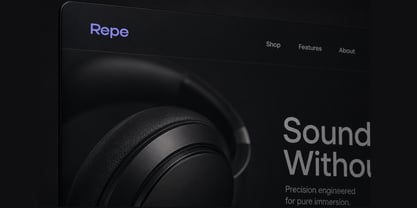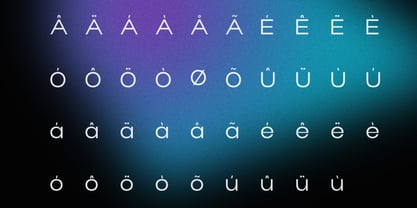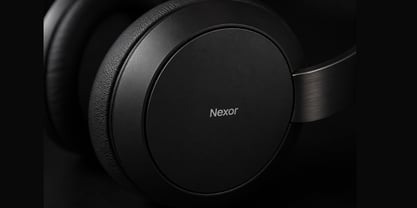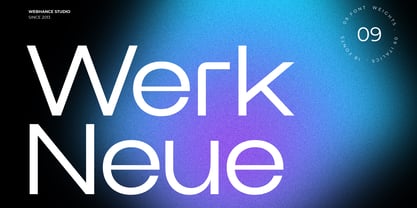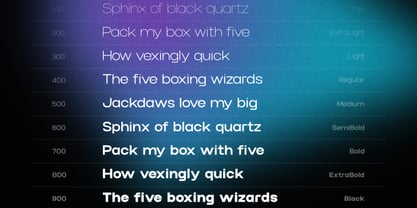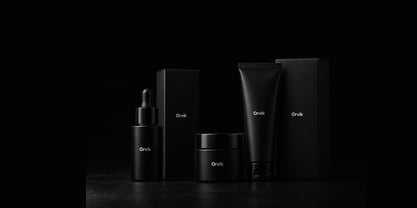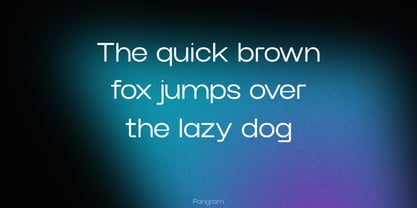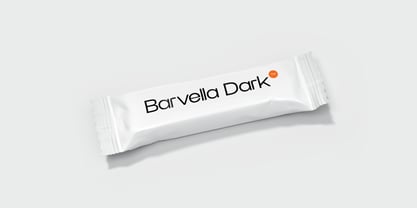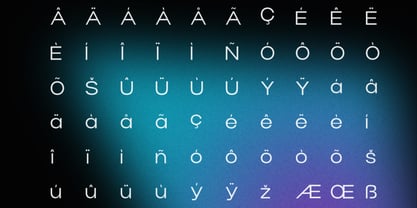
Werk Neue
by Webhance
The Werk Neue Font Family was designed by Ancy George and published by Webhance. Werk Neue contains 18 styles and family package options. More about this family
Werk Neue is a modern grotesk sans-serif typeface designed for clarity, balance, and everyday use. Its clean letterforms, precise spacing, and neutral character make it highly adaptable across interfaces, branding, and editorial design.
Built with readability in mind, Werk Neue performs consistently across different sizes and contexts. It is well suited for UI design, dashboards, websites, and modern design systems where clarity and structure are essential.
The typeface includes extended Latin support with a full set of accented characters, enabling reliable multilingual use across a wide range of languages.
The family features 9 weights, from Hairline to Black, each paired with matching italics. Whether used for interfaces, brand identities, layouts, or digital products, Werk Neue provides a versatile and dependable typographic system.